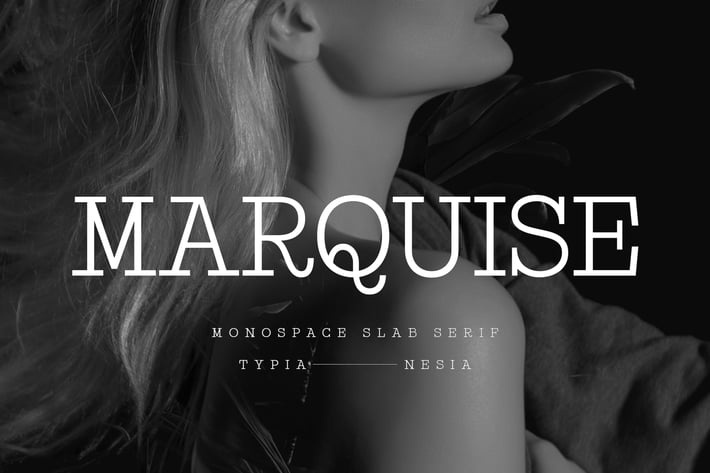
Marquise - Modern Monospace Slab Serif Font
Marquise - Modern Monospace Slab Serif Font - Luxury Classy Logo Brand Font - Vintage Classic Font
Marquise Slab Serif Font is perfect for your up coming projects. Such as classic logo and branding, classic editorial design, magazine, fashion promotional, Sport and Game design, Ticket design, stationery design, blog design, advertising design, music, men skincare, art quote, home decor, book / novel cover title, special events and any more.